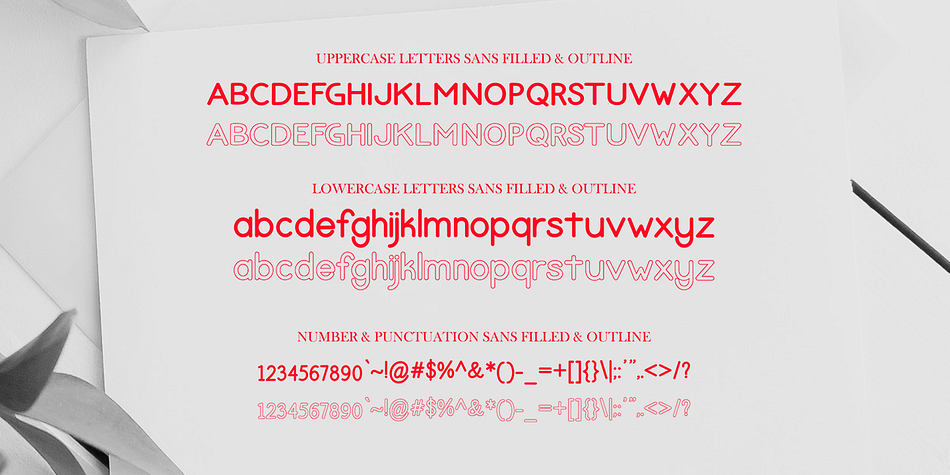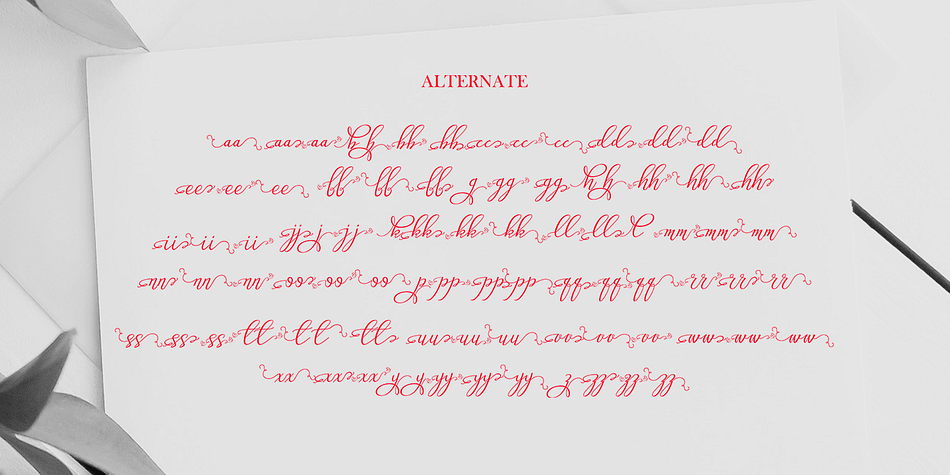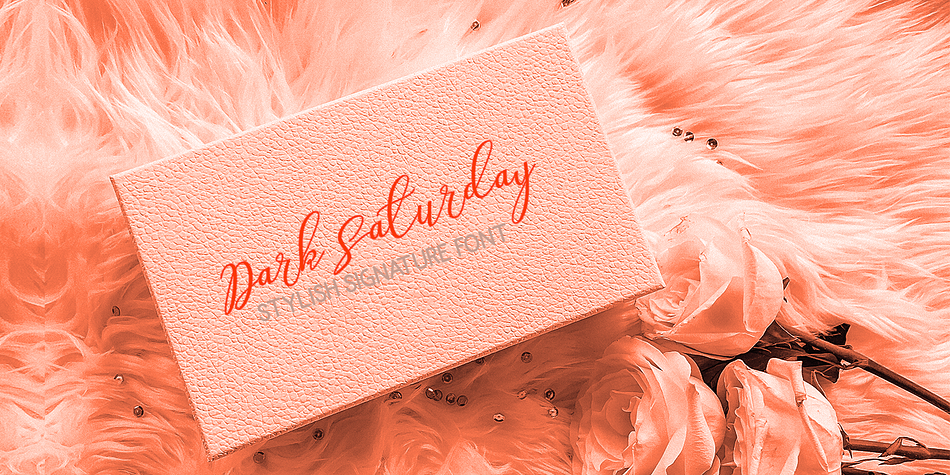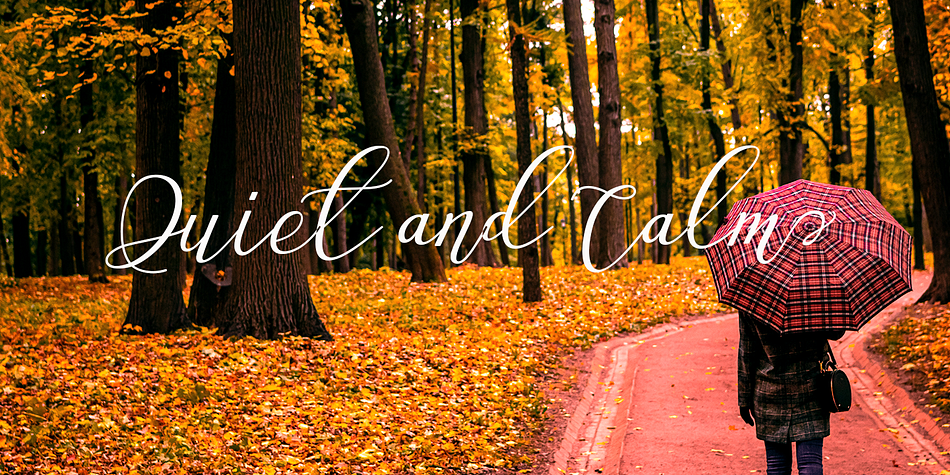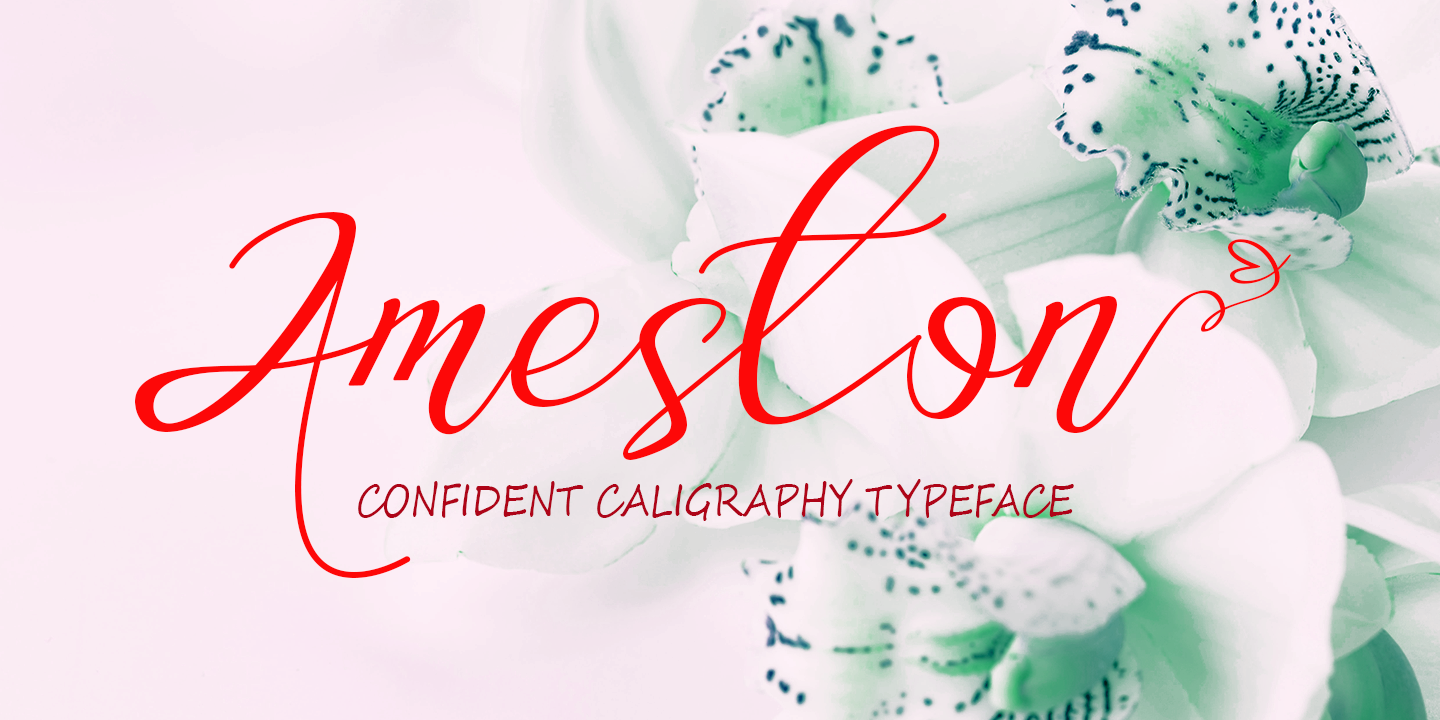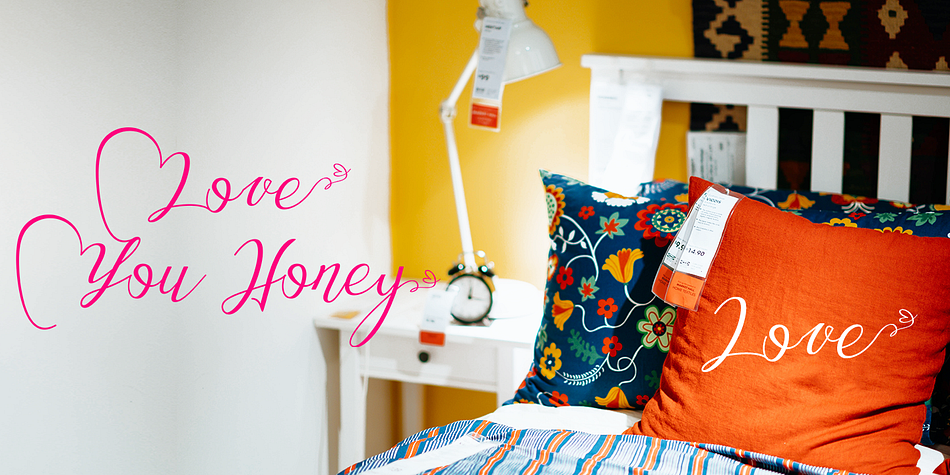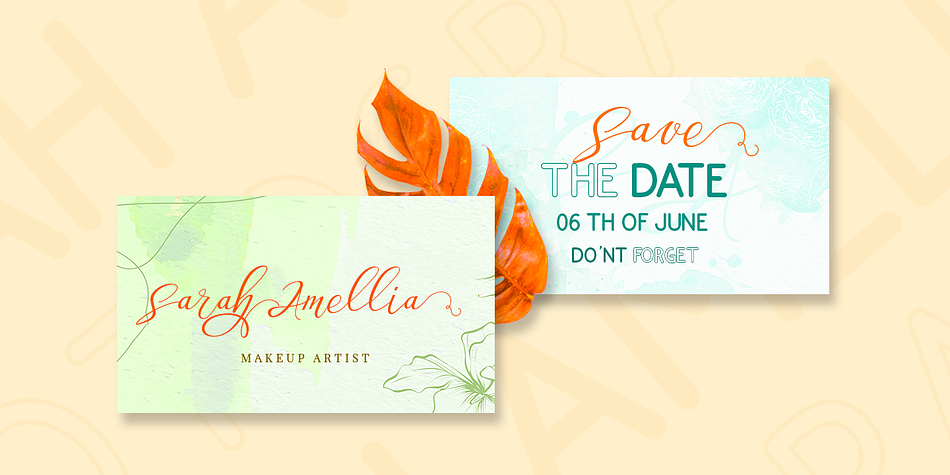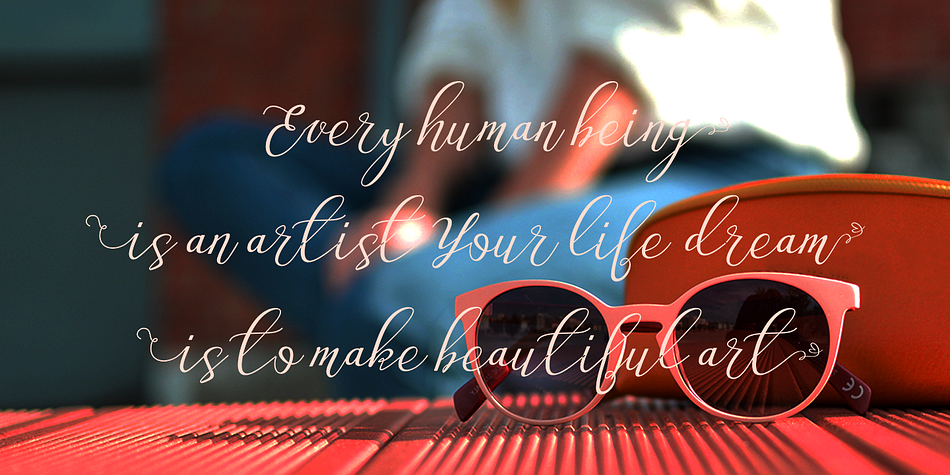
Ameston
Ameston is a comic, display sans and modern calligraphy font family. This typeface has three styles and was published by Gatype.
Ameston is an organic handwritten font suitable for branding, signatures, wedding invitations, promotions, product packaging and other necessities. This font is modern, simple, but still authentic.